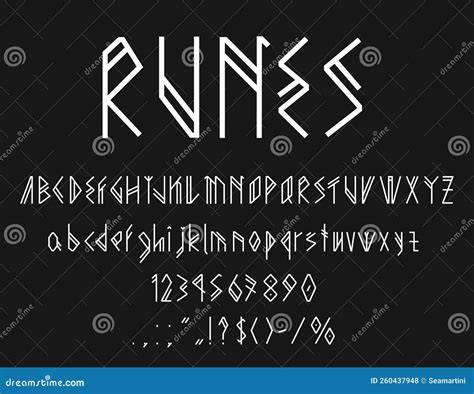
Runes Fonts: A Look Into The Ancient Language Of The Norsemen
It's 2023 and runes fonts have become increasingly popular among web designers and typographers. Runes, also known as Futhark, are an ancient alphabet used by the Norsemen of Northern Europe in the Middle Ages. They are considered to be one of the earliest forms of writing, and are still used in some parts of the world today.
Runes were used for various purposes, including writing charms and charms for protection, divination, and communication with the gods. They were also used for record keeping and as a form of communication between individuals. Runes were also used as a form of communication between gods and humans, and as a way to express emotions. It is believed that runes were created by the gods to aid in communication between humans and the gods.
Unlocking the Secrets of Runes Fonts
Runes fonts are used to make text look more interesting and can be used to emphasize certain words or phrases. They can also be used to give a feeling of mysticism and mystery to a piece of writing. Runes fonts are often used in logos, titles, and other text elements that need to stand out. Runes fonts can also be used to create a sense of mystery and intrigue in a text.
Runes fonts come in many different styles and fonts, from the more traditional to the more modern. Some runes fonts are designed to look like a traditional font, while others are designed to look more modern and stylish. Depending on the style of runes font that you choose, they can be used to emphasize certain words or phrases, or to give a feeling of mystery and intrigue. Runes fonts can also be used to create a unique look and feel for a website or other type of text.
Uses of Runes Fonts
Runes fonts are often used in logos, titles, and other text elements that need to stand out. Runes fonts can also be used to create a unique look and feel for a website or other type of text. Runes fonts can also be used to create a sense of mysticism and mystery to a piece of writing. Runes fonts are also used in book and magazine covers, as well as in advertising.
Runes fonts are also used in tattoos, as they can be used to emphasize certain words or phrases. Runes fonts can be used to create an interesting look, and can be used to emphasize a particular point. Runes fonts can also be used to create a feeling of mystery and intrigue in a text. Runes fonts can also be used to create a unique look and feel for a website or other type of text.
Runes Fonts on the Rise
Runes fonts have become increasingly popular among web designers and typographers in recent years. They are used to create a unique look and feel for a website or other type of text, and can be used to emphasize certain words or phrases. Runes fonts can also be used to create a sense of mystery and intrigue in a text, as well as to create an interesting look. Runes fonts can also be used in tattoos, as they can be used to emphasize certain words or phrases.
Runes fonts can be used to create a unique look and feel for a website or other type of text. They can also be used to emphasize certain words or phrases, or to create a feeling of mystery and intrigue in a text. Runes fonts can also be used to create an interesting look, and can be used in tattoos, as they can be used to emphasize certain words or phrases.
Runes fonts are becoming increasingly popular among web designers and typographers, and are used to create a unique look and feel for a website or other type of text. They can be used to emphasize certain words or phrases, or to create a feeling of mystery and intrigue in a text. Runes fonts can also be used to create an interesting look, and can be used in tattoos, as they can be used to emphasize certain words or phrases.